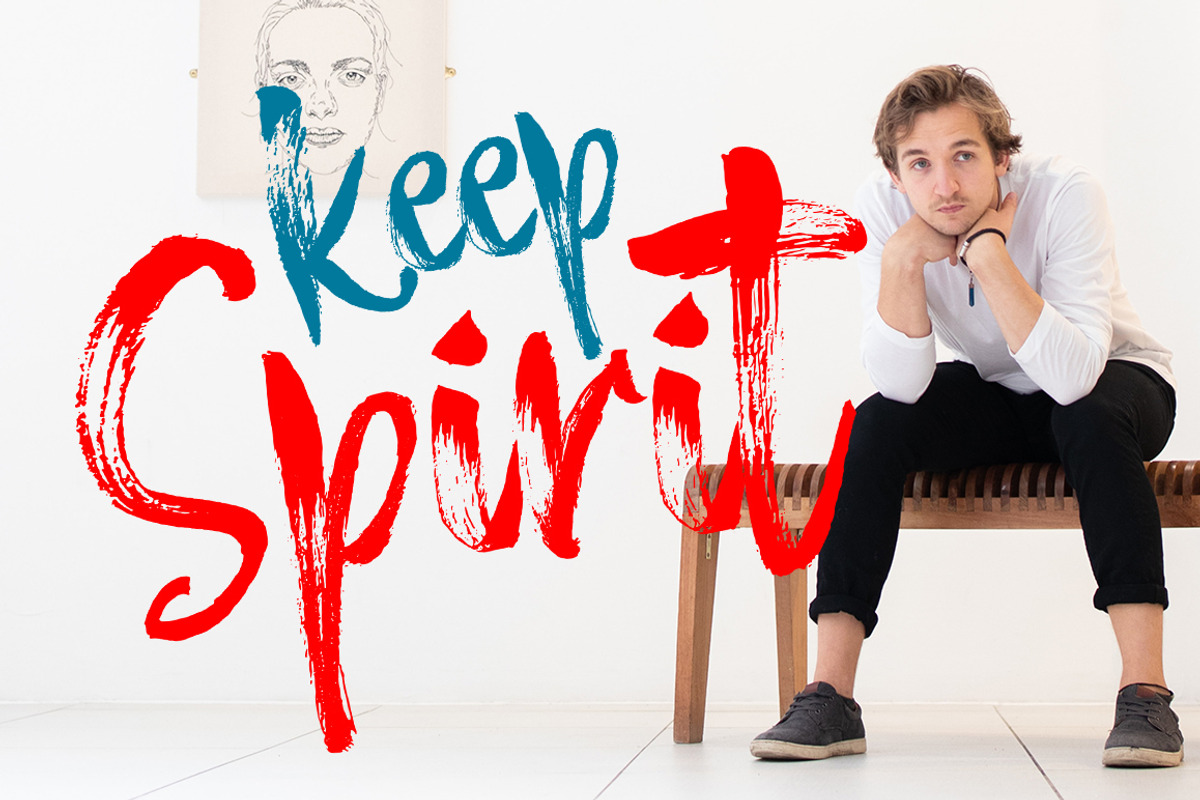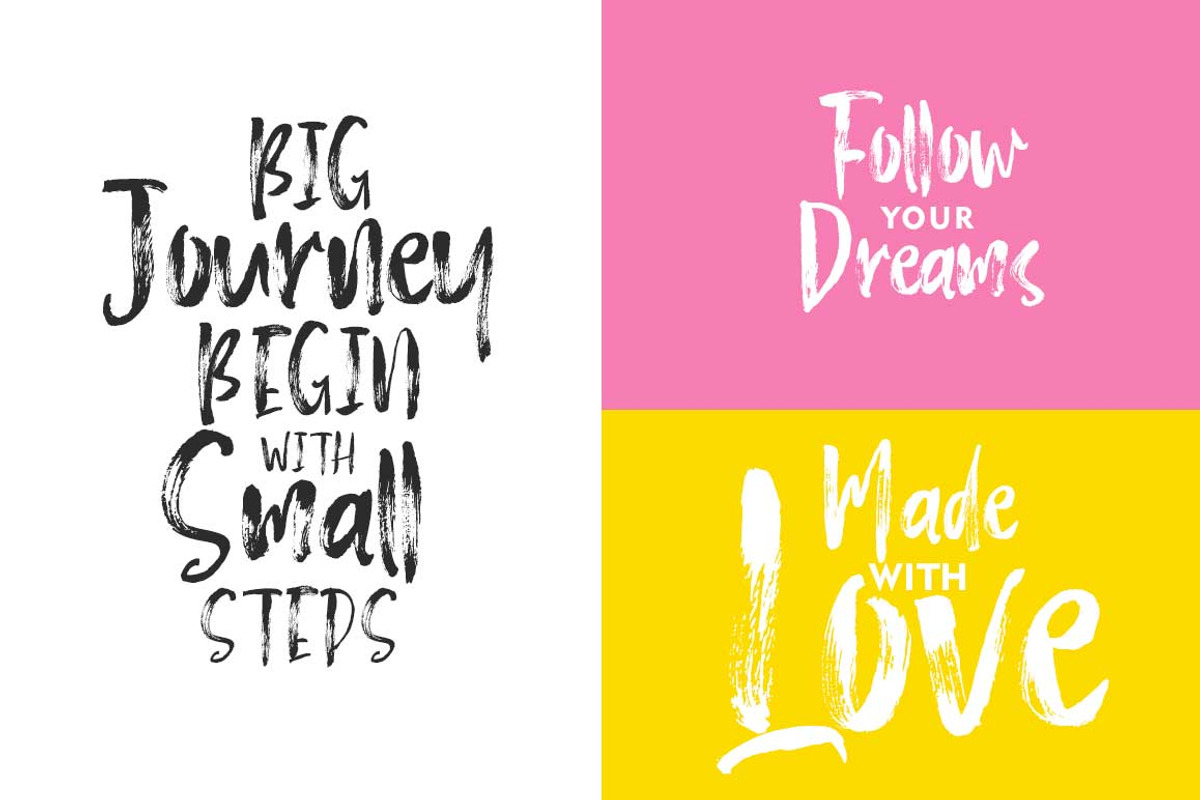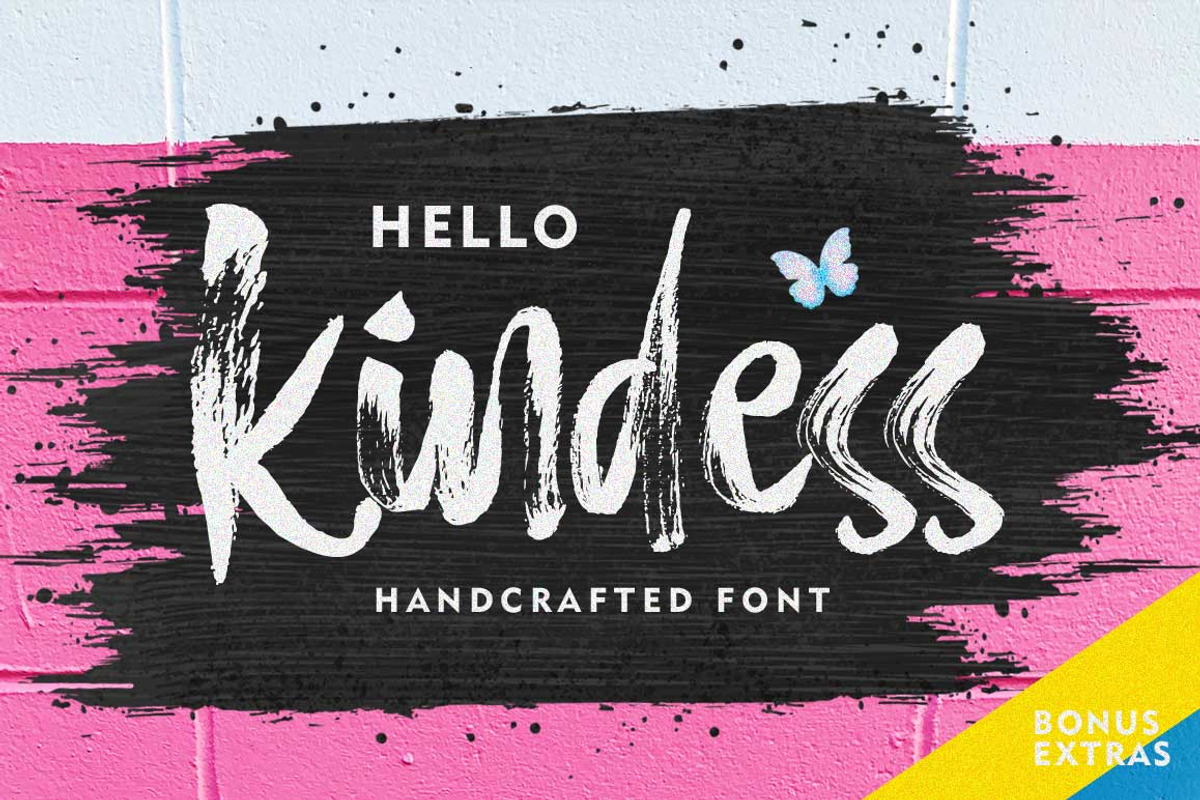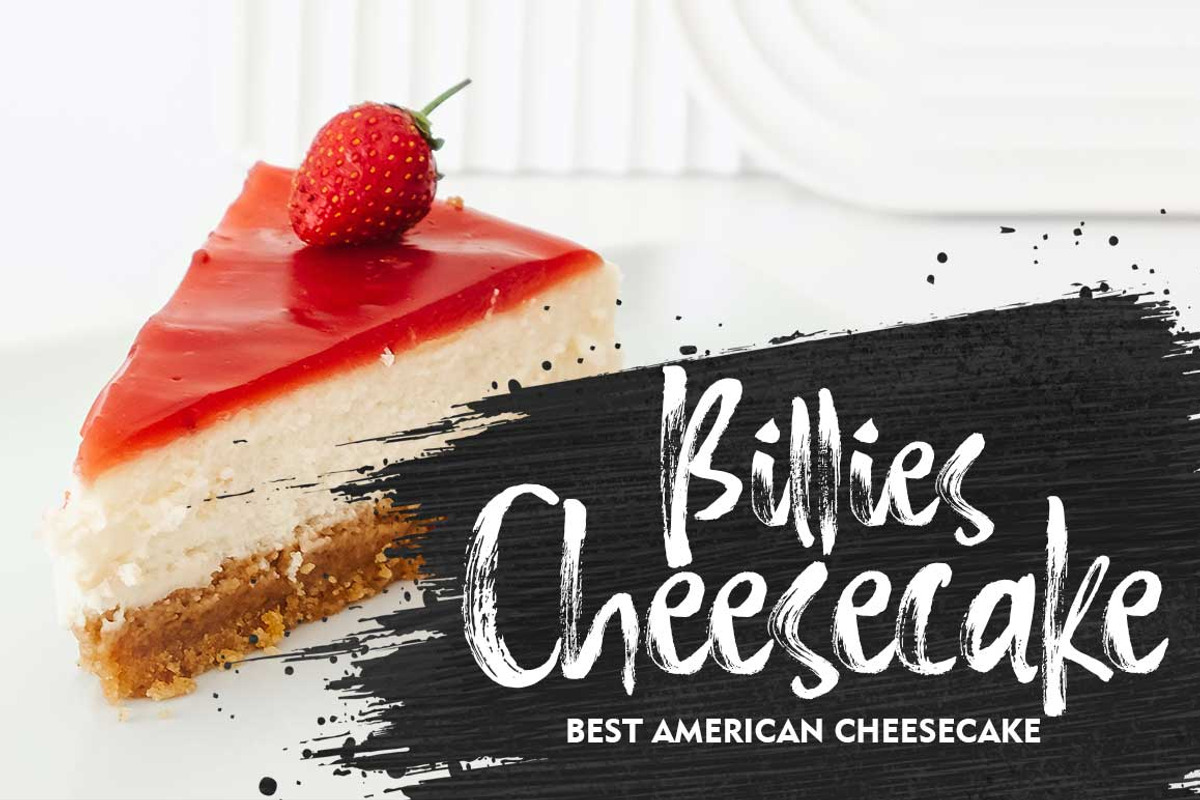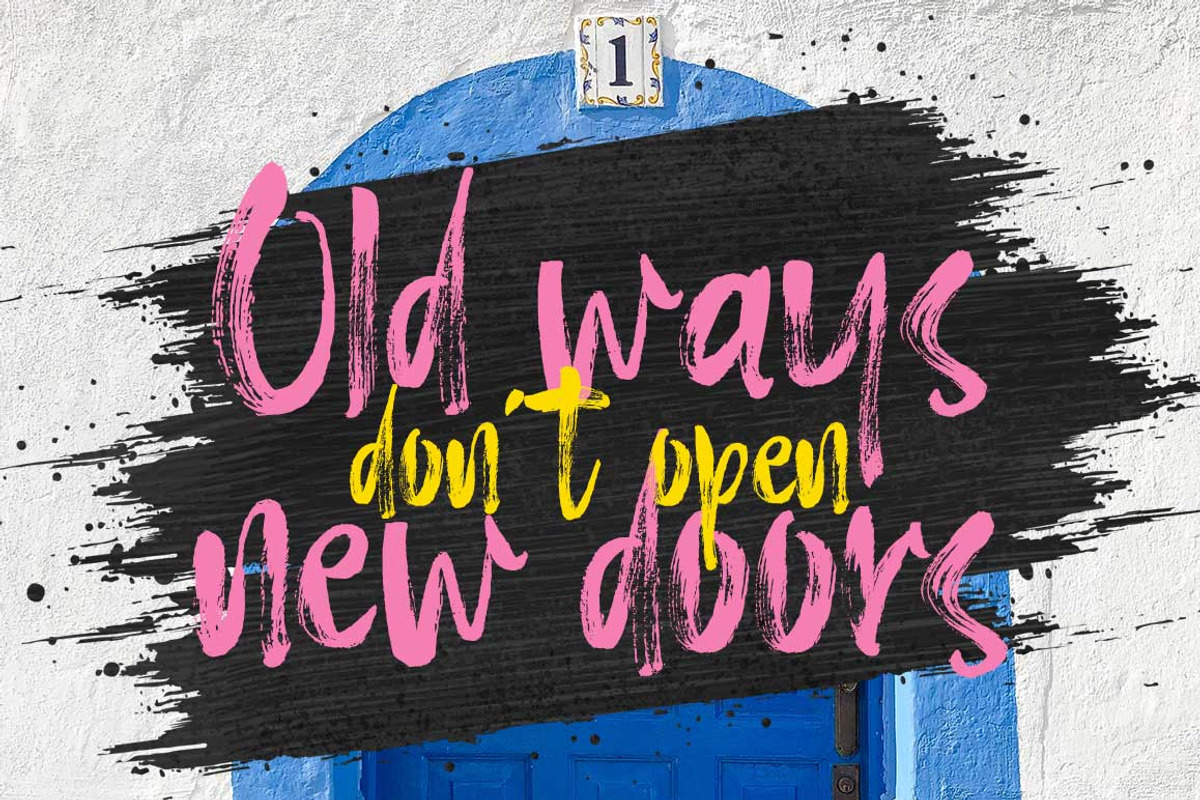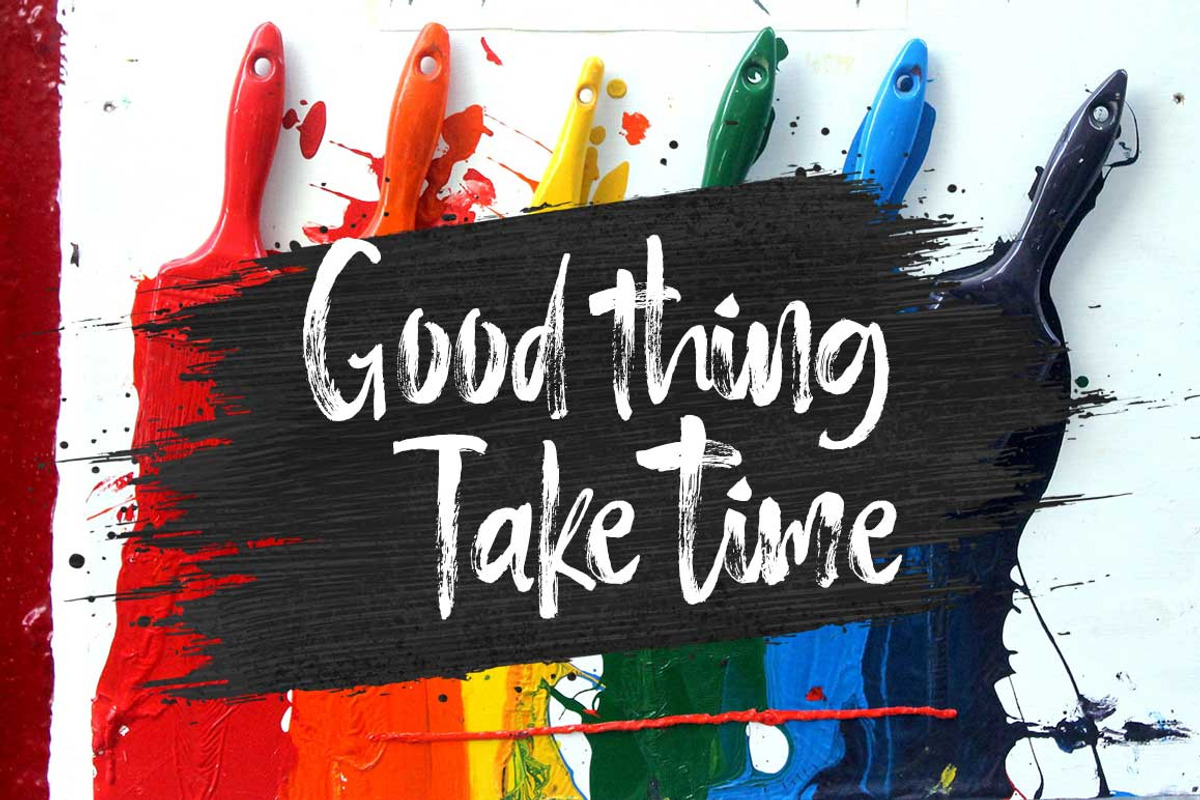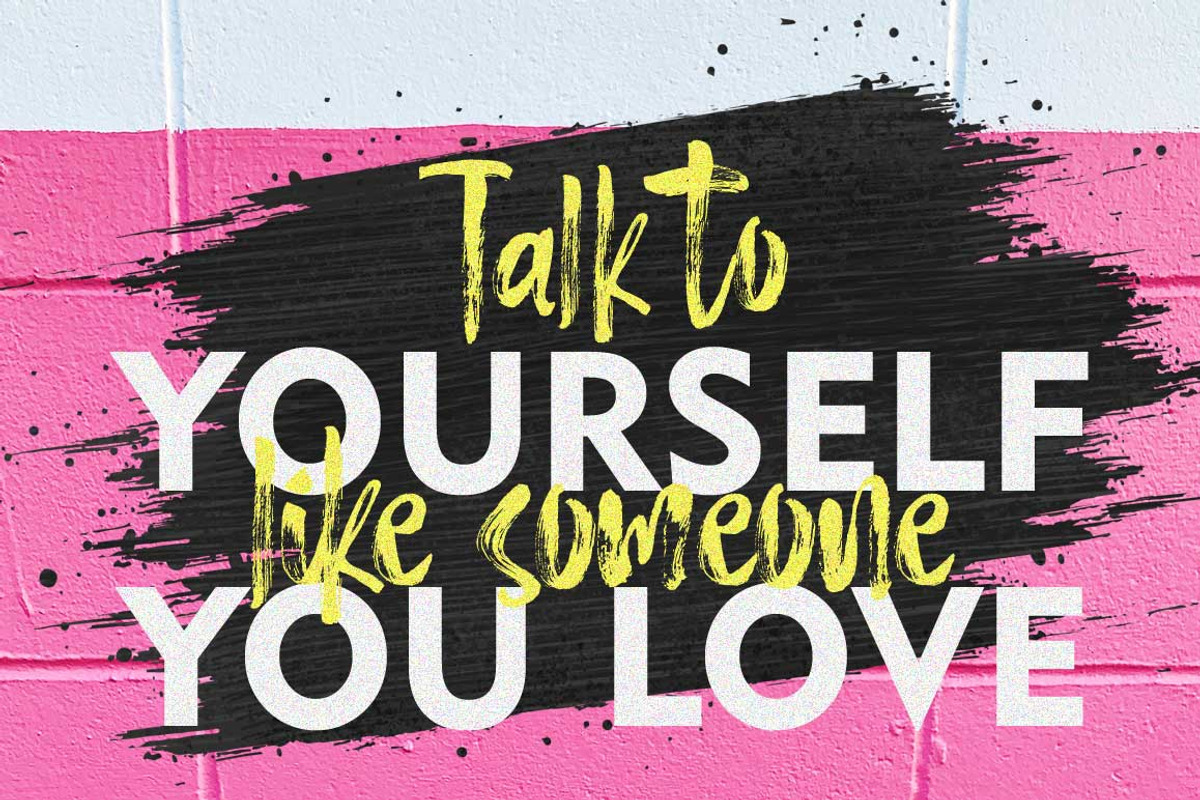
Hello Kindess Brush Font
Hello Kindess is a hand brushed font & Extras.
A carefully crafted collection of fonts that combine elements of informal, romantic, sweet, beautiful design, and hand-drawn typography design elements.
Hello Kindess Font including various language support. You can use this font for your work very easily. Because there are many features in it. Contains a complete set of upper and lower case letters, punctuation, numbers, and multilingual support. This font also includes several ligatures and alternative styles Set Stylistic For those of you who have software that can work OpenType (Corel Draw / Photoshop / Illustrator / InDesign).
Hello Kindess Brush • Automatic ligature • Multilingual support
Hello Kindess Extras • More than 20 Typographic Design Elements taken by hand